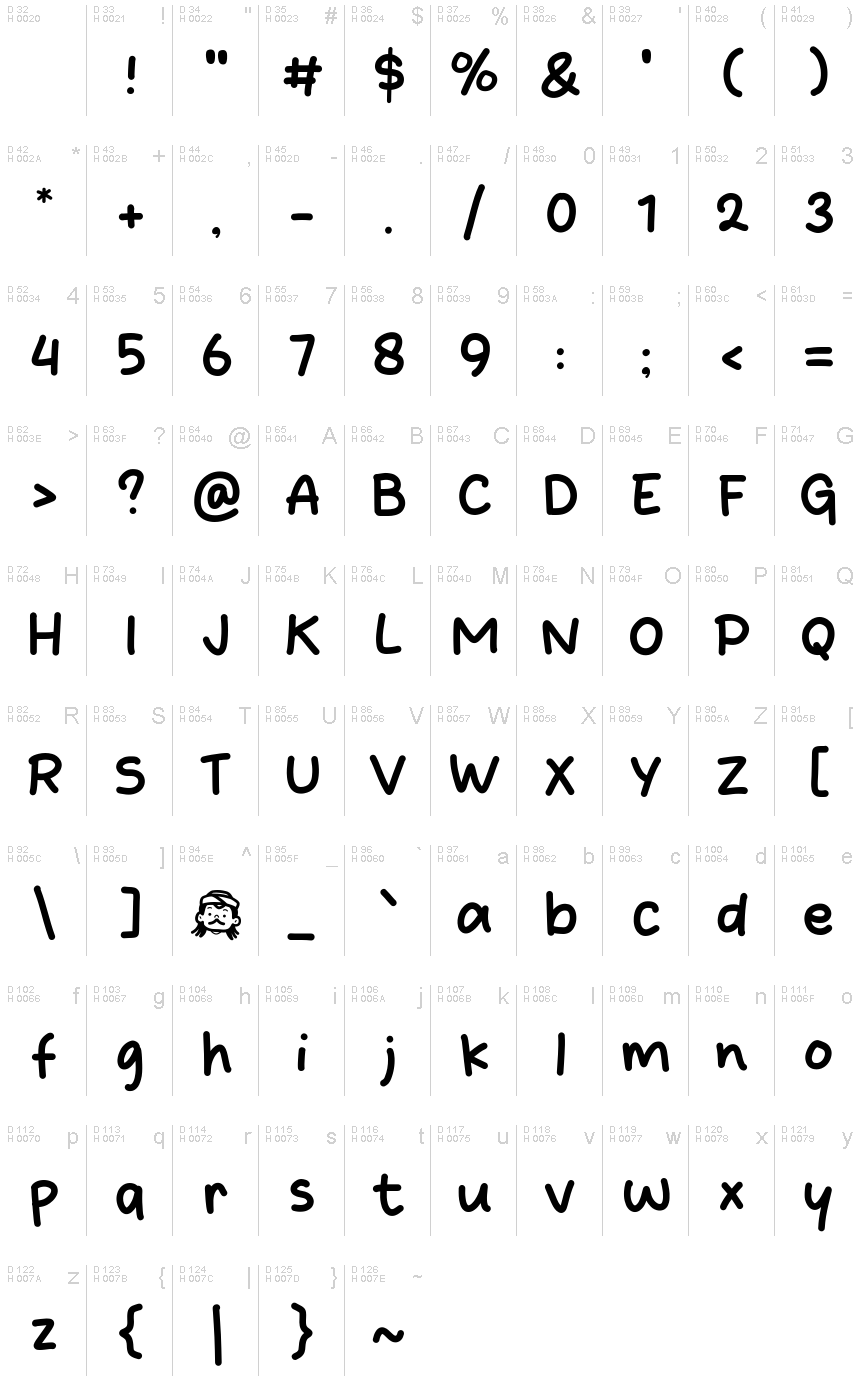
Mang Gondrong
Mang Gondrong, a captivating handwritten font designed by Khurasan, exudes a distinctive charm that instantly captivates the eye. With its playful, organic strokes and a touch of whimsy, this font effortlessly conveys a sense of warmth and authenticity. The varied line weights and subtle imperfections lend an endearing, hand-crafted aesthetic, evoking a sense of personal expression and artisanal craftsmanship.
This versatile font seamlessly adapts to a wide range of design applications, from rustic and artisanal branding to playful product packaging and engaging editorial layouts. Its unique character makes it an excellent choice for bringing a touch of personality and character to various creative projects, whether in the realms of typography, graphic design, or even content curation.